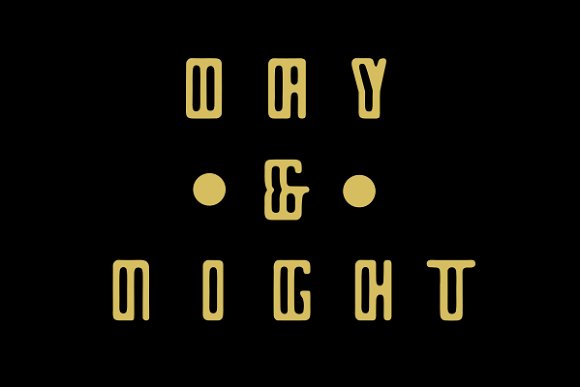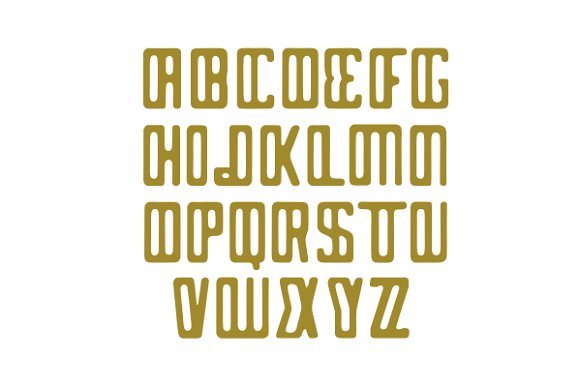
Unveiling Gallows Font: The Distant Relative of Stout
In the vast world of typography, font designers continually strive to create unique and versatile typefaces that cater to various design needs. One such font is Gallows, a distinctive typeface that has garnered attention for its rugged charm and adaptability. In this article, we’ll delve into the story behind Gallows, its inspiration, and its applications in design.
The Genesis of Gallows
Gallows is based on an earlier font called Stout, from which it has evolved as a distant relative. While Stout laid the groundwork, Gallows has taken on a life of its own, boasting a character that is both familiar and distinct. This evolution is a testament to the design process, where iteration and refinement lead to the creation of something new and exciting.
Gallows is characterized by its robust and resilient appearance, making it an excellent choice for designs that require a strong visual impact. Its design ensures legibility, even at smaller sizes, which is crucial for its intended applications. The font’s structure and lines are carefully crafted to provide a clean and crisp look, whether it’s used in digital formats or print.
Intended Applications
Gallows was specifically created to pair well with badges, mono line icons, and apparel. Its design complements these elements by adding a layer of ruggedness and sophistication. For badge designs, Gallows offers a bold statement that can stand out in various contexts, from marketing materials to merchandise. When paired with mono line icons, it creates a visually appealing contrast that can enhance the overall aesthetic of a design. For apparel, Gallows provides a stylish yet durable look that can withstand the demands of fashion while maintaining its visual appeal.
One of the standout features of Gallows is its versatility. While it’s designed with specific applications in mind, it also works remarkably well on its own. This adaptability makes Gallows a valuable addition to any designer’s toolkit, as it can be used across a wide range of projects. Whether it’s for branding, packaging, or digital content, Gallows brings a unique character that can elevate a design from ordinary to extraordinary.
Why Designers and Crafters Love Gallows
Designers and crafters appreciate fonts that offer both aesthetic appeal and practicality. Gallows hits the mark by providing a distinctive look that is also highly functional. Here are a few reasons why Gallows has become a favorite among designers and crafters:
- Unique Aesthetic: Gallows offers a look that is hard to find in more common fonts, making it a great choice for projects that require something distinctive.
- High Legibility: Despite its unique design, Gallows maintains high legibility across various sizes and applications.
- Versatility: Its ability to pair well with various design elements and stand alone makes Gallows incredibly versatile.
Gallows is more than just a font; it’s a design tool that offers a blend of rugged charm and versatility. Its creation story, rooted in the evolution from Stout, adds a layer of depth to its character. Whether you’re a designer looking for a font that can add a bold statement to your work or a crafter seeking a stylish and durable look for your projects, Gallows is an excellent choice. Its applications in badge designs, mono line icons, apparel, and beyond make it a valuable asset in the world of design.
As typography continues to play a crucial role in design, fonts like Gallows remind us of the importance of uniqueness and adaptability. With Gallows, designers and crafters have at their disposal a font that is not only aesthetically pleasing but also highly functional. It’s a testament to the power of typography in shaping the visual identity of a project and a reminder that, in the world of design, the right font can make all the difference.